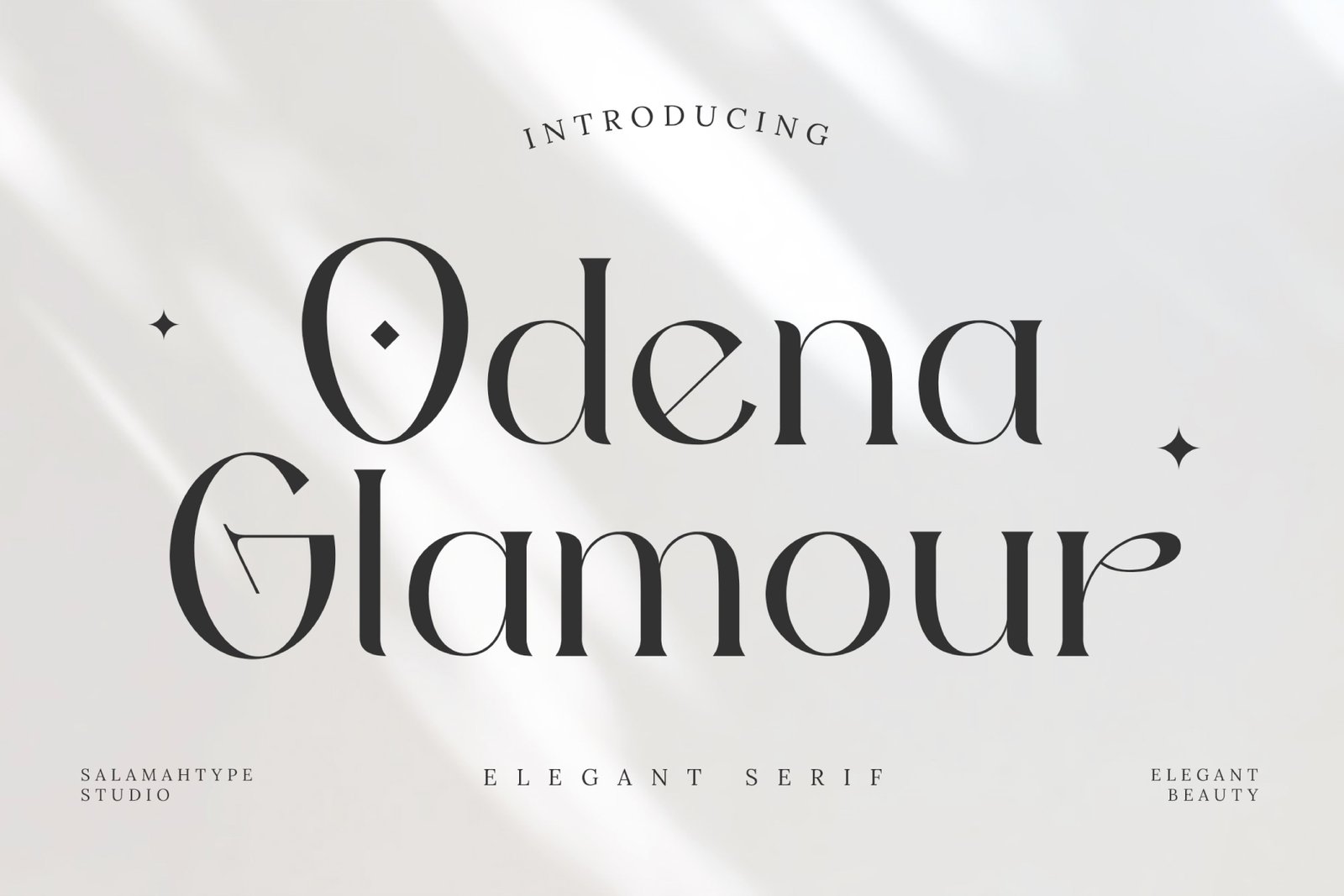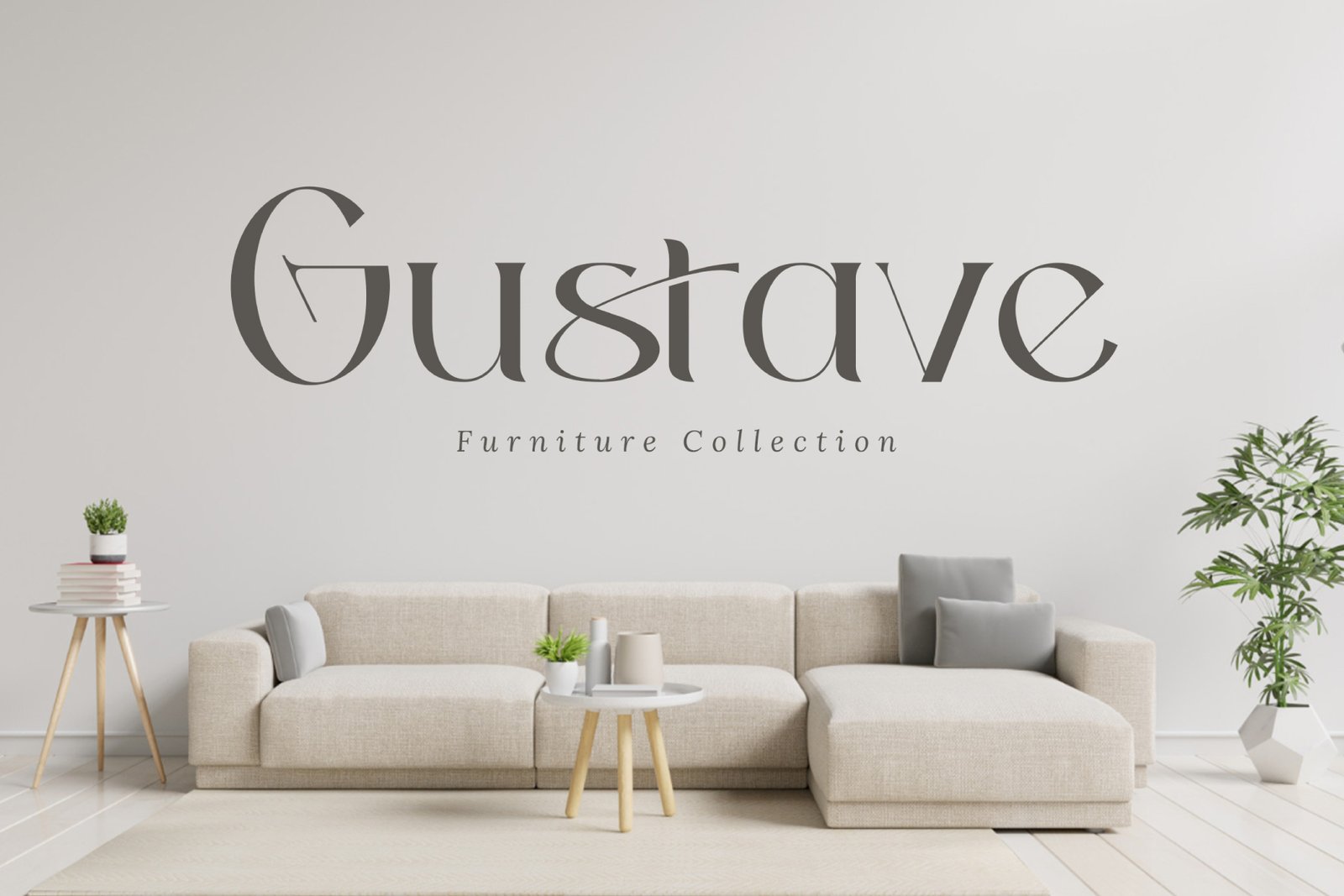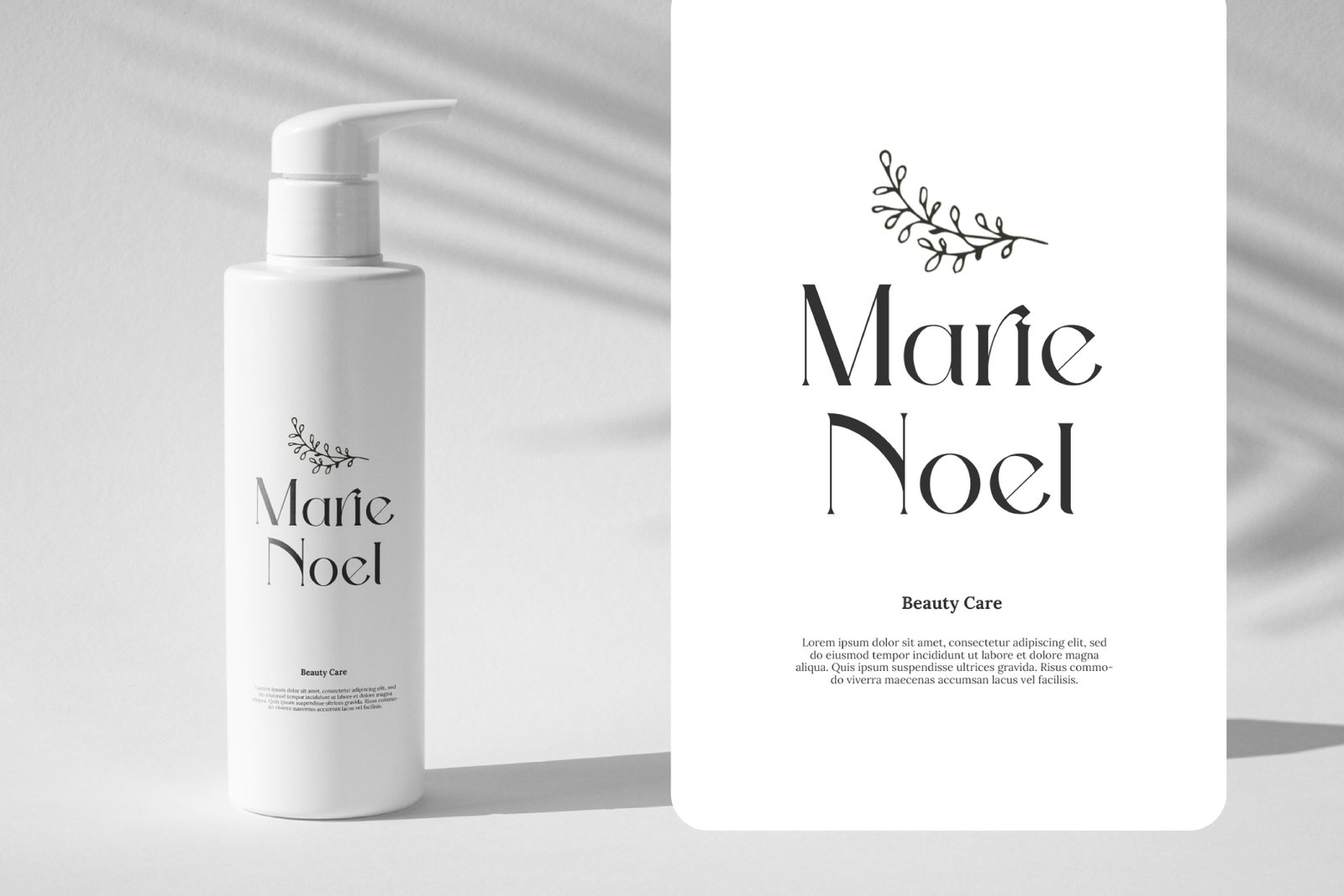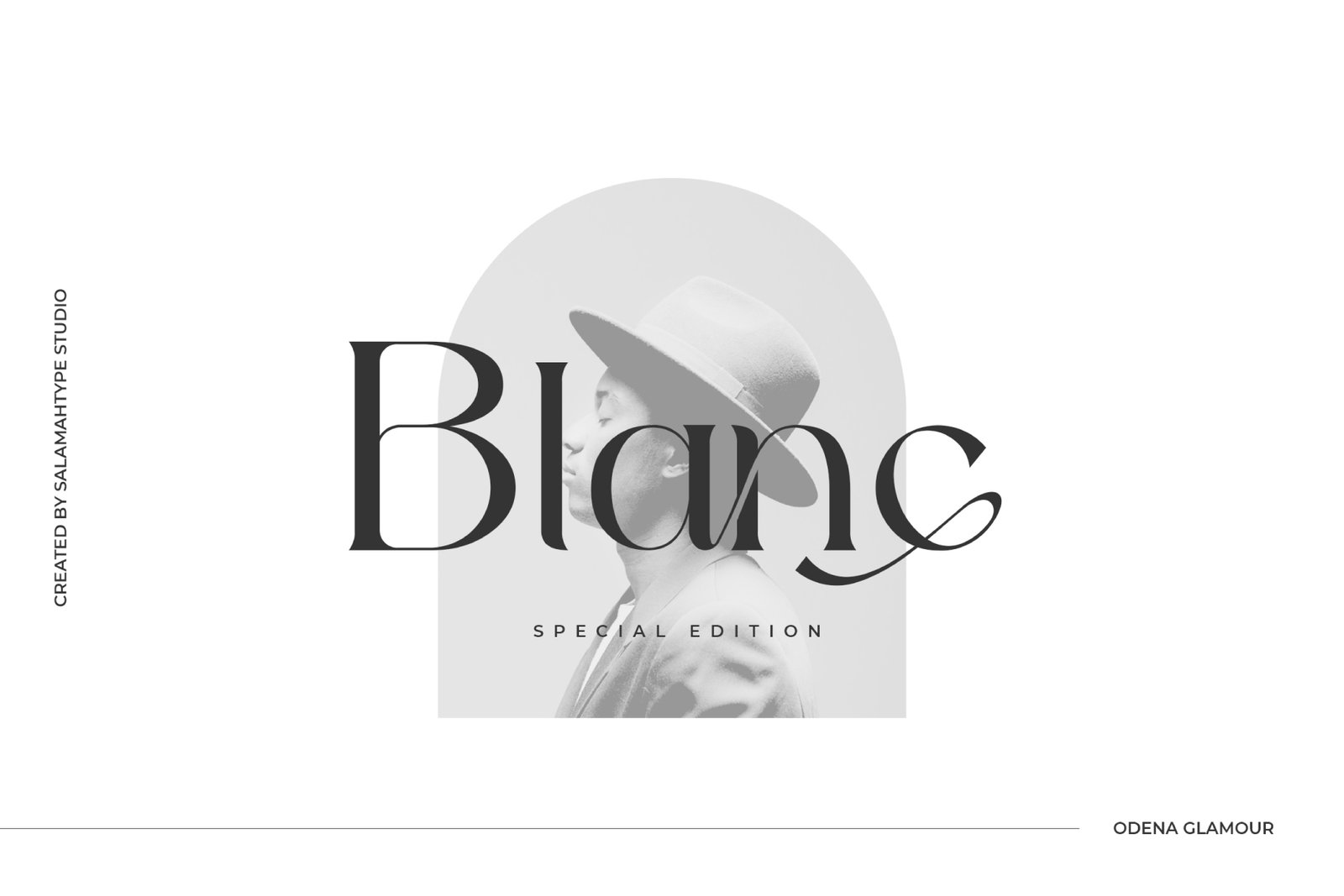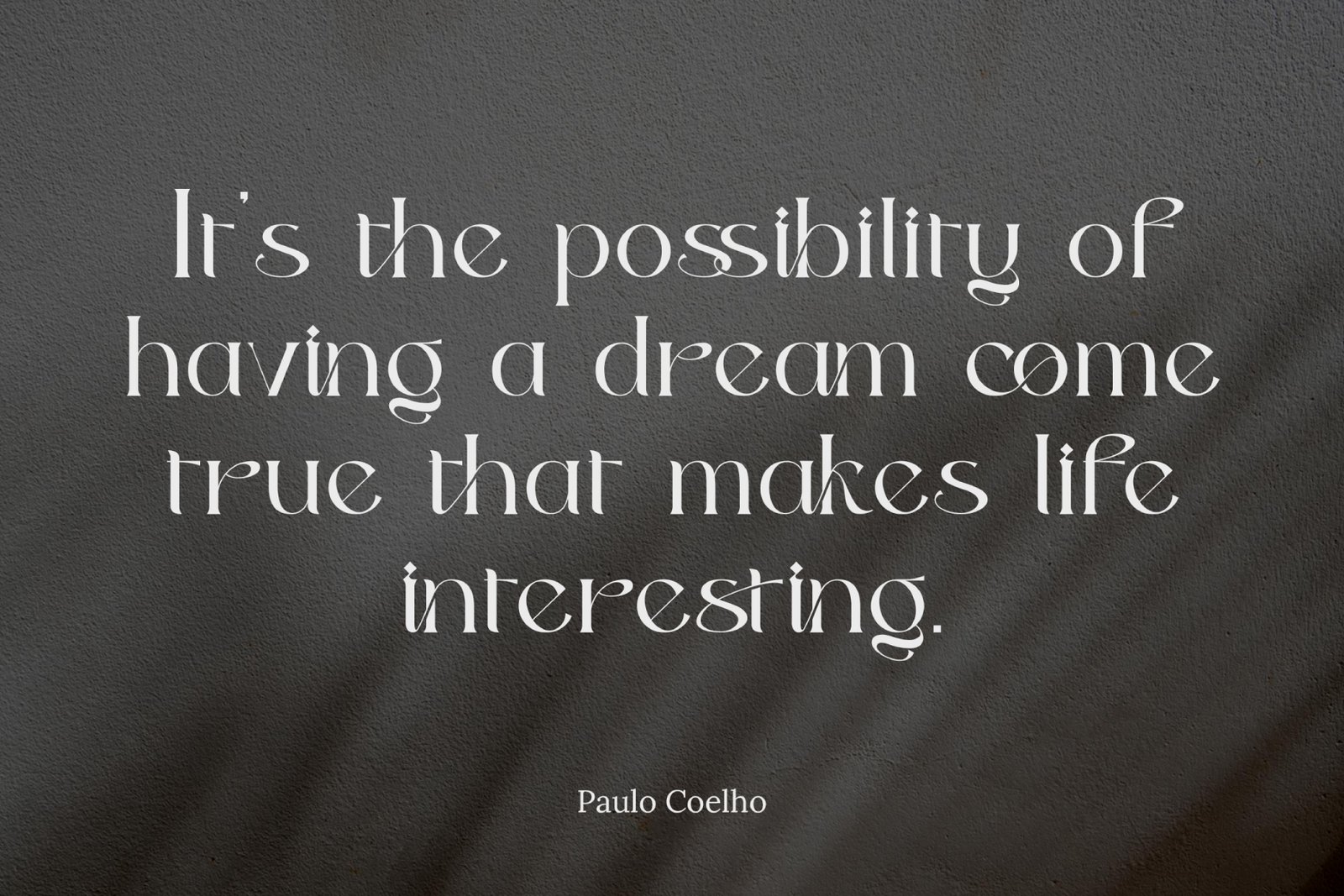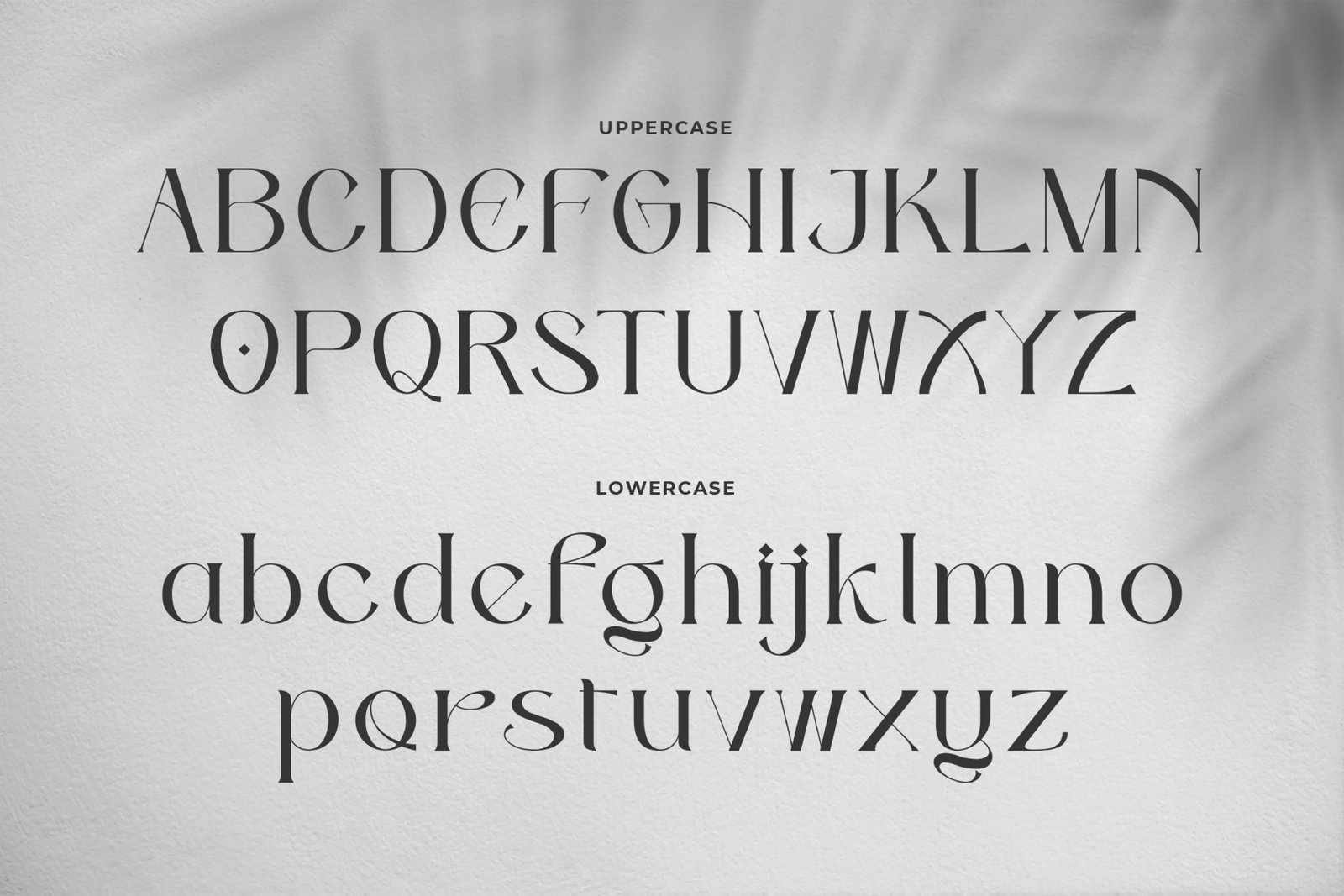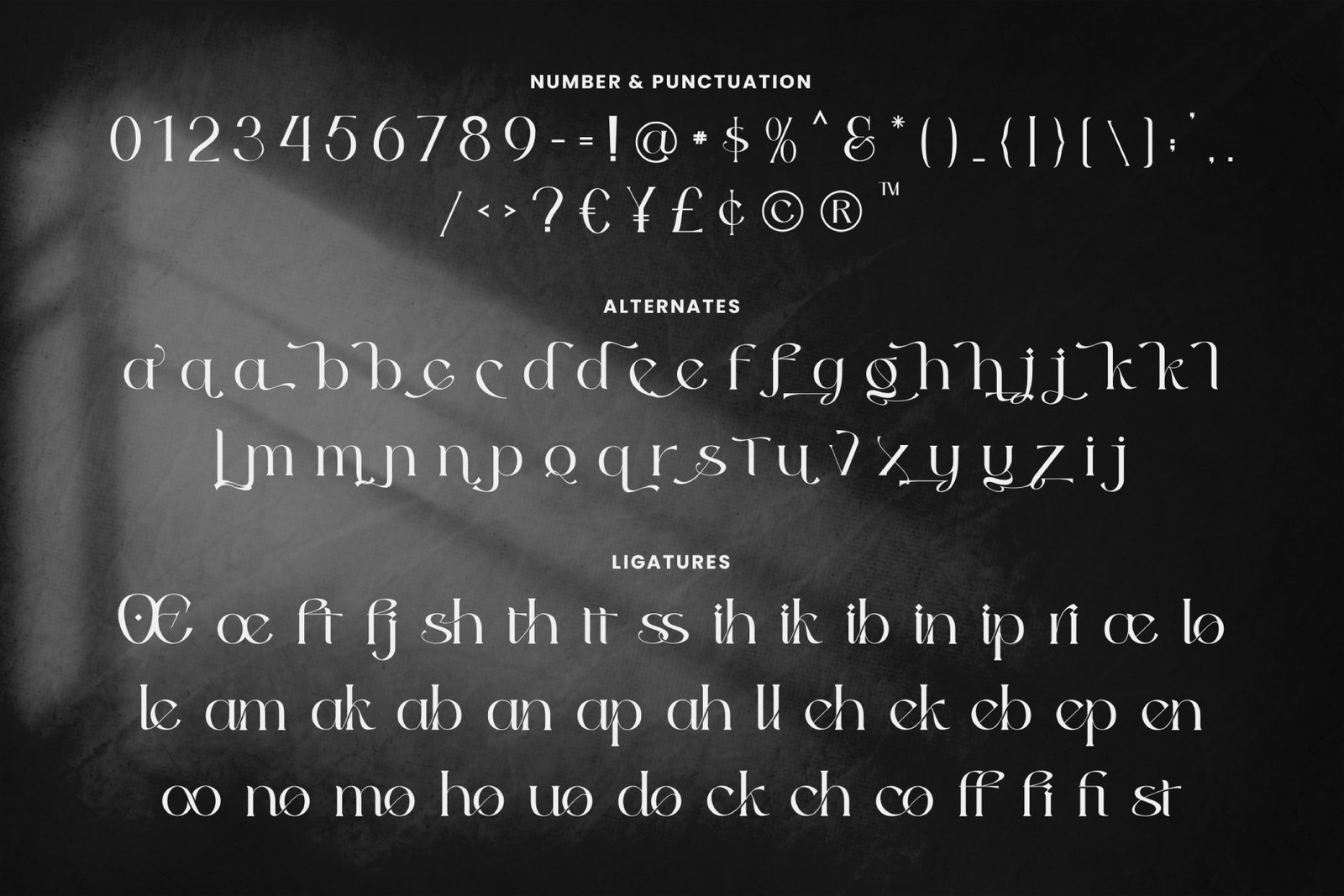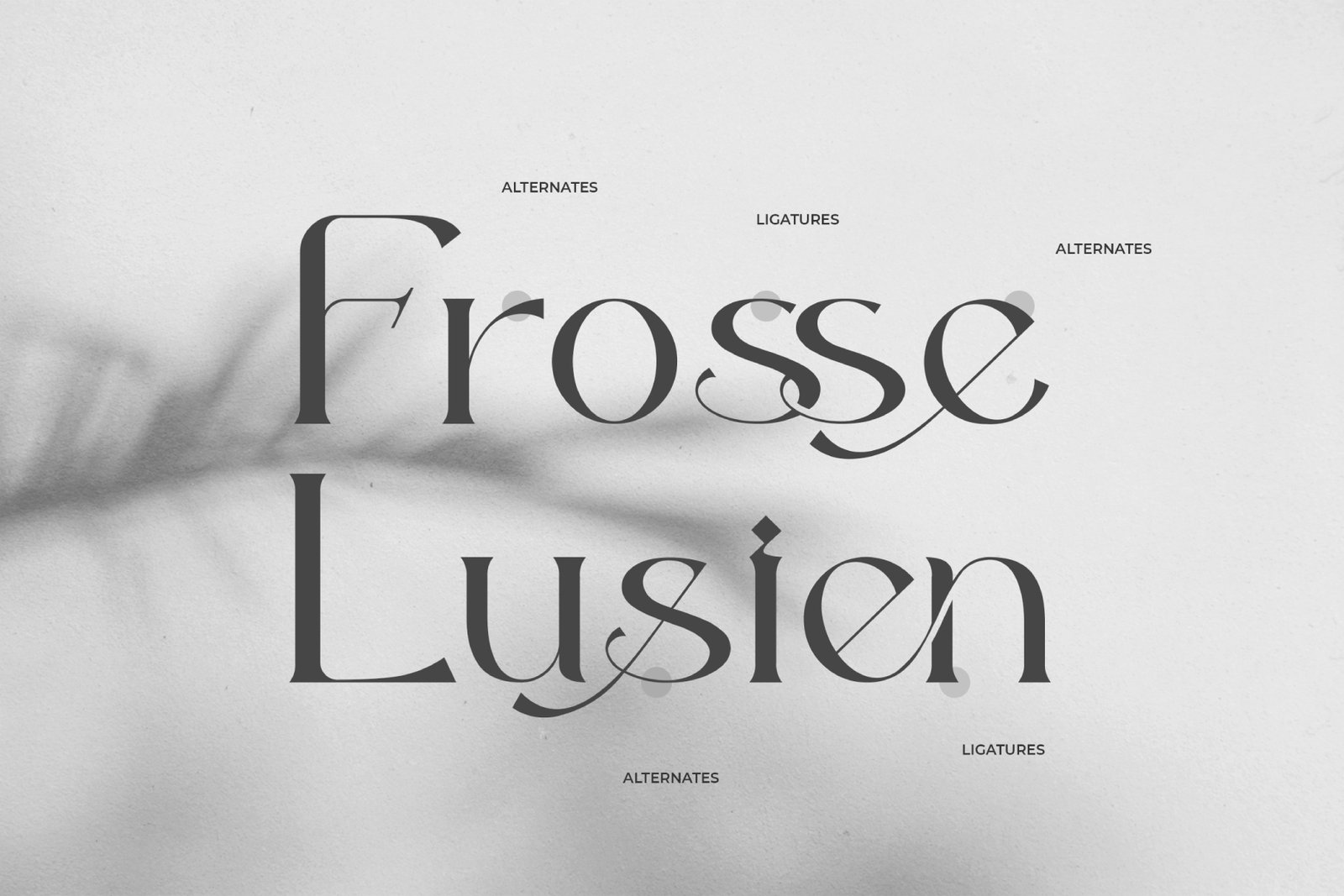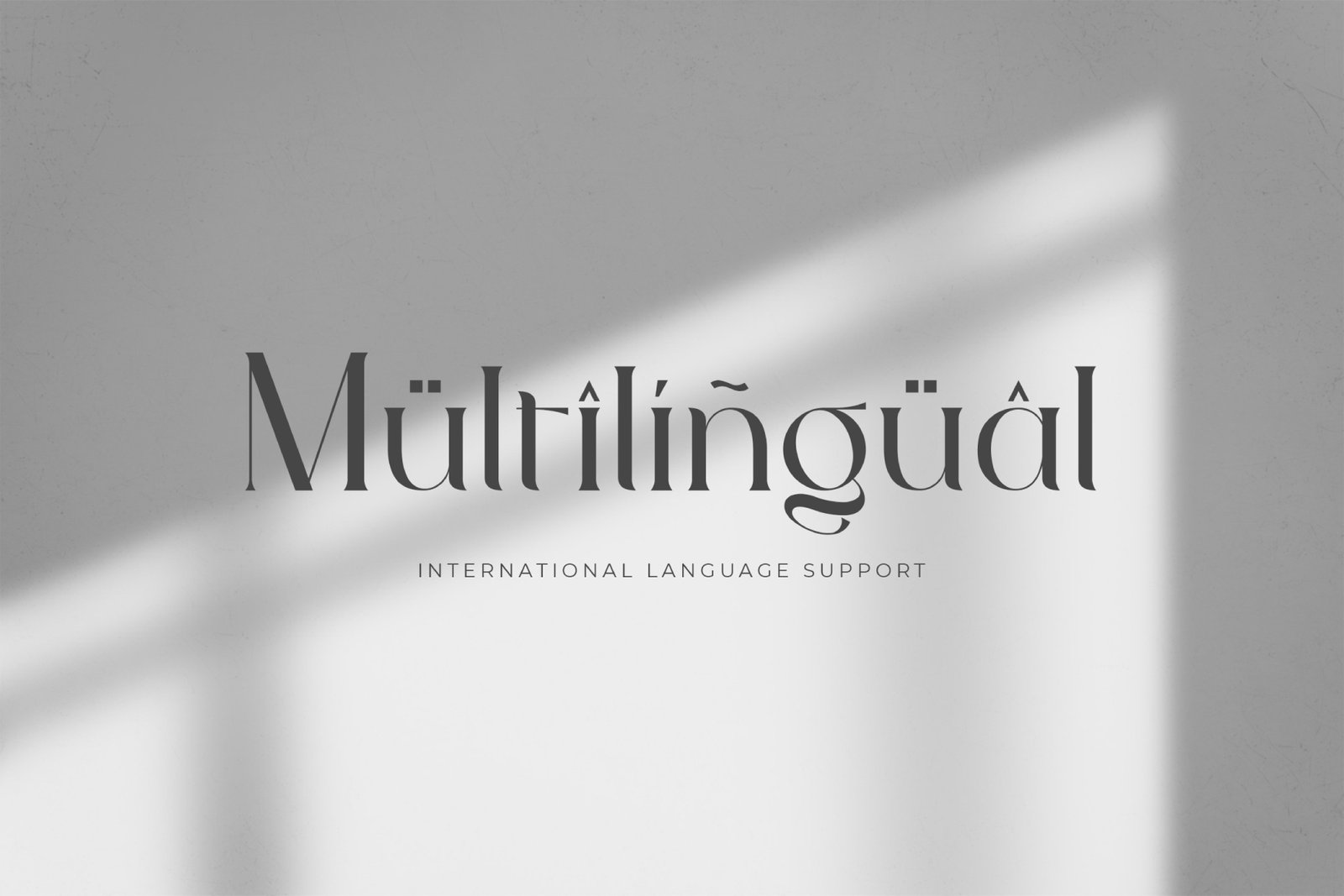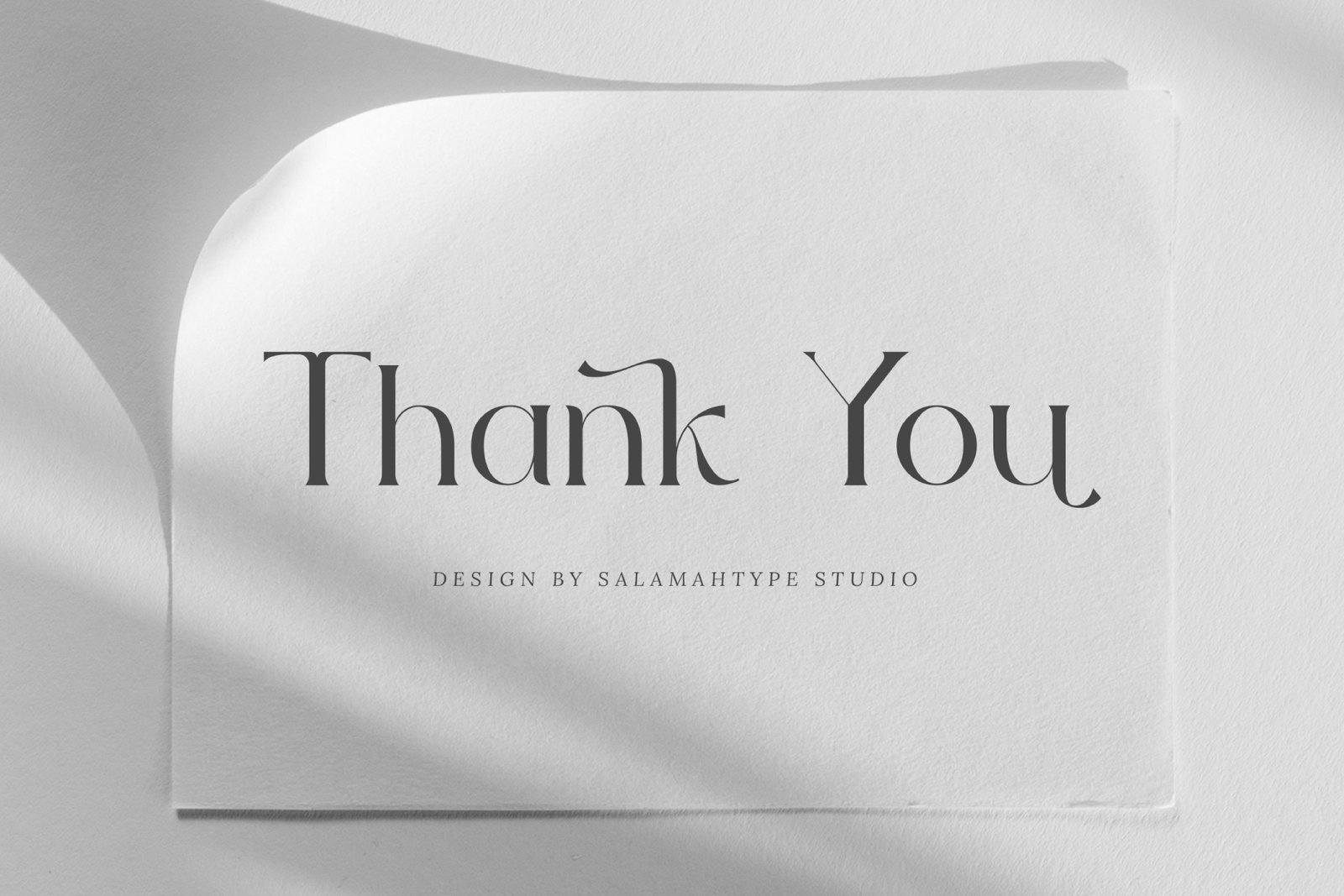
- Odena Glamour – Elegant Modern Serif Font
Odena Glamour – Elegant Modern Serif Font for Branding & Logo Design
Odena Glamour is a modern serif font that blends elegance and sophistication in every letter. Its refined style makes it perfect for branding projects, logo design, wedding invitations, packaging, advertisements, social media posts, product designs, photography watermarks, stationery, and much more.
With graceful curves and stylish details, Odena Glamour adds a timeless, luxurious touch to your creative work — whether you’re crafting a high-end logo or designing a romantic wedding invitation.
Features:
Uppercase & Lowercase Letters
Punctuation & Symbols
Multilingual Support
Includes Ligatures & Alternates
Bring sophistication and charm to your designs with Odena Glamour, the modern serif font that combines style, readability, and elegance.